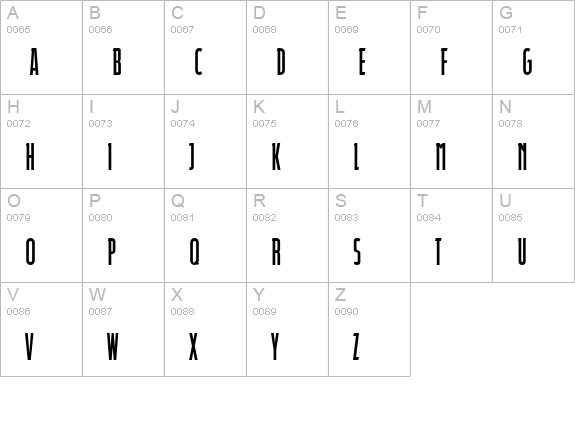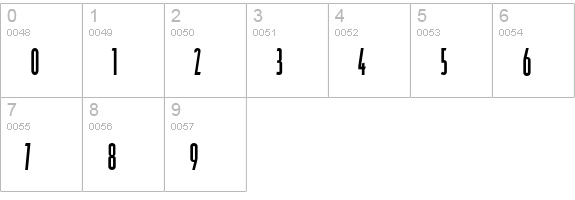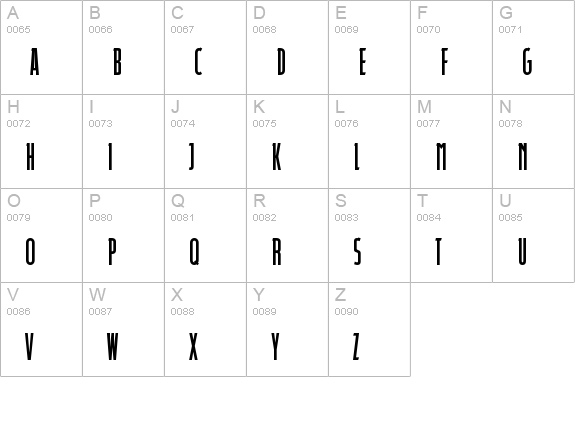
Durango-Compressed-Bold is a strong, high-contrast, condensed-width variant in the Durango typeface family \xE2\x80\x94 well suited to headlines, attention-grabbing titles, and strong calls-to-action.
Durango-Compressed-Bold is a modern and versatile font that exudes strength and sophistication. With its bold appearance and condensed design, this typeface is perfect for making a bold statement in your designs. Its clean lines and sharp edges give it a sleek and professional look that is sure to grab attention. Best of all, Durango-Compressed-Bold is available for free download at FontsMarket.com. Whether you're working on a branding project, poster design, or any other creative endeavor, this font is a great choice for adding impact and style to your work. Don't miss out on the opportunity to enhance your designs with this exceptional typeface. Download Durango-Compressed-Bold today and take your projects to the next level!